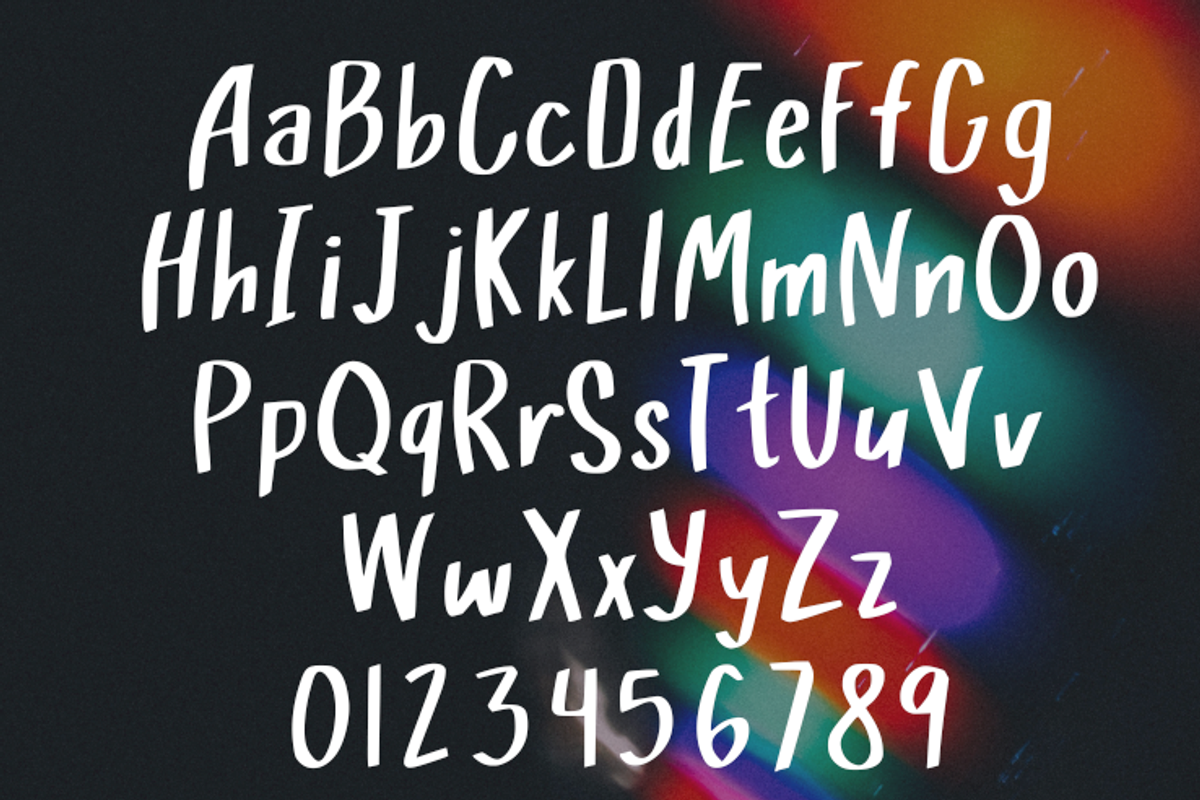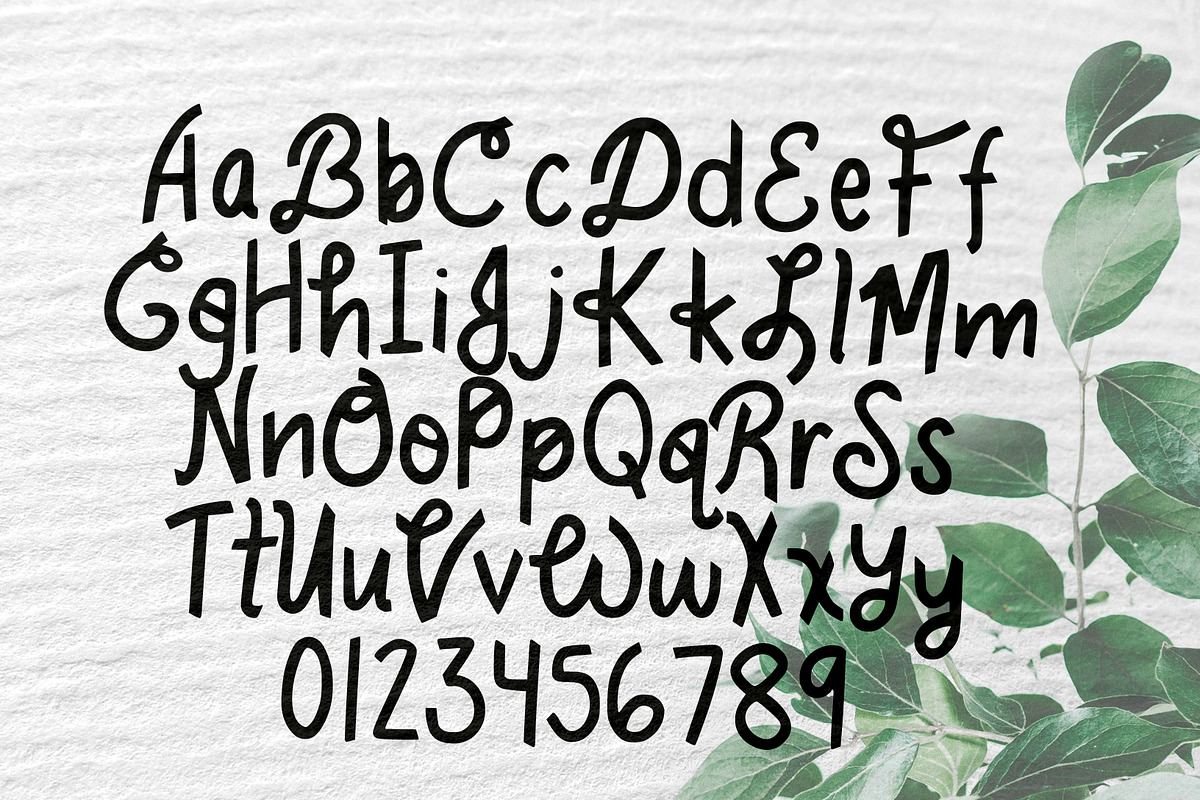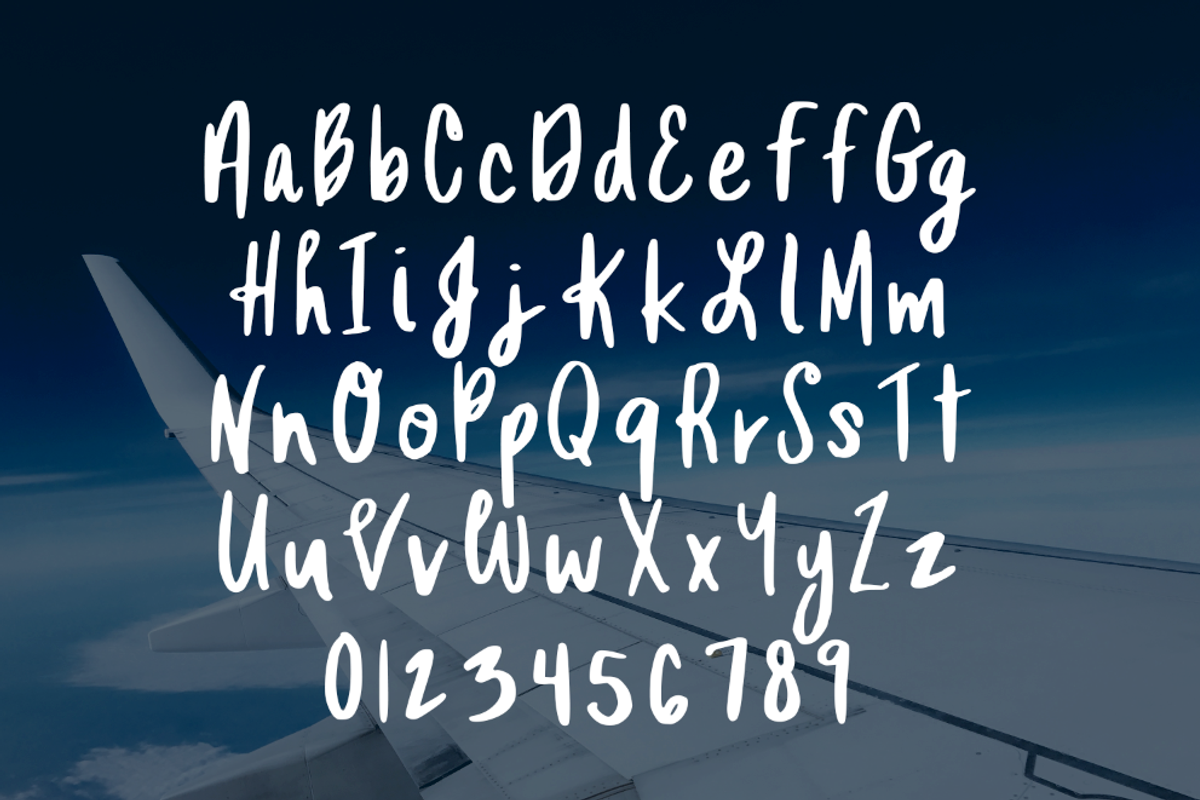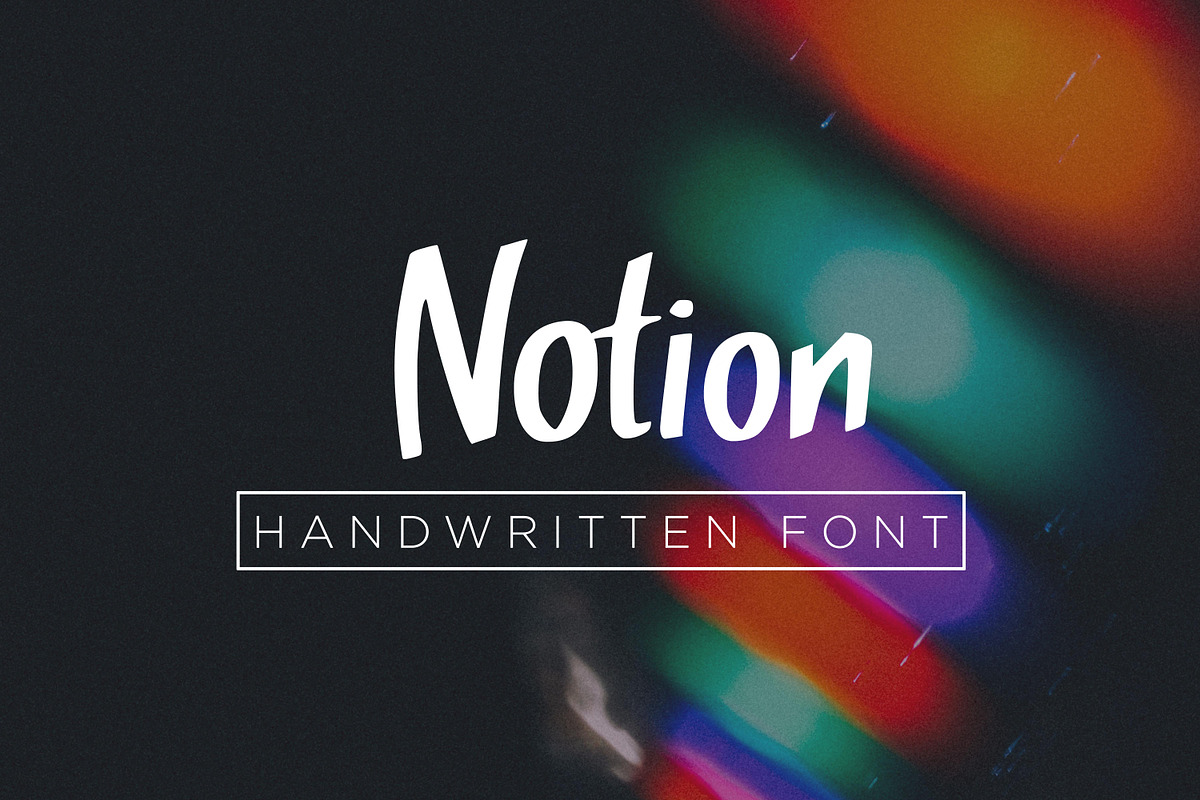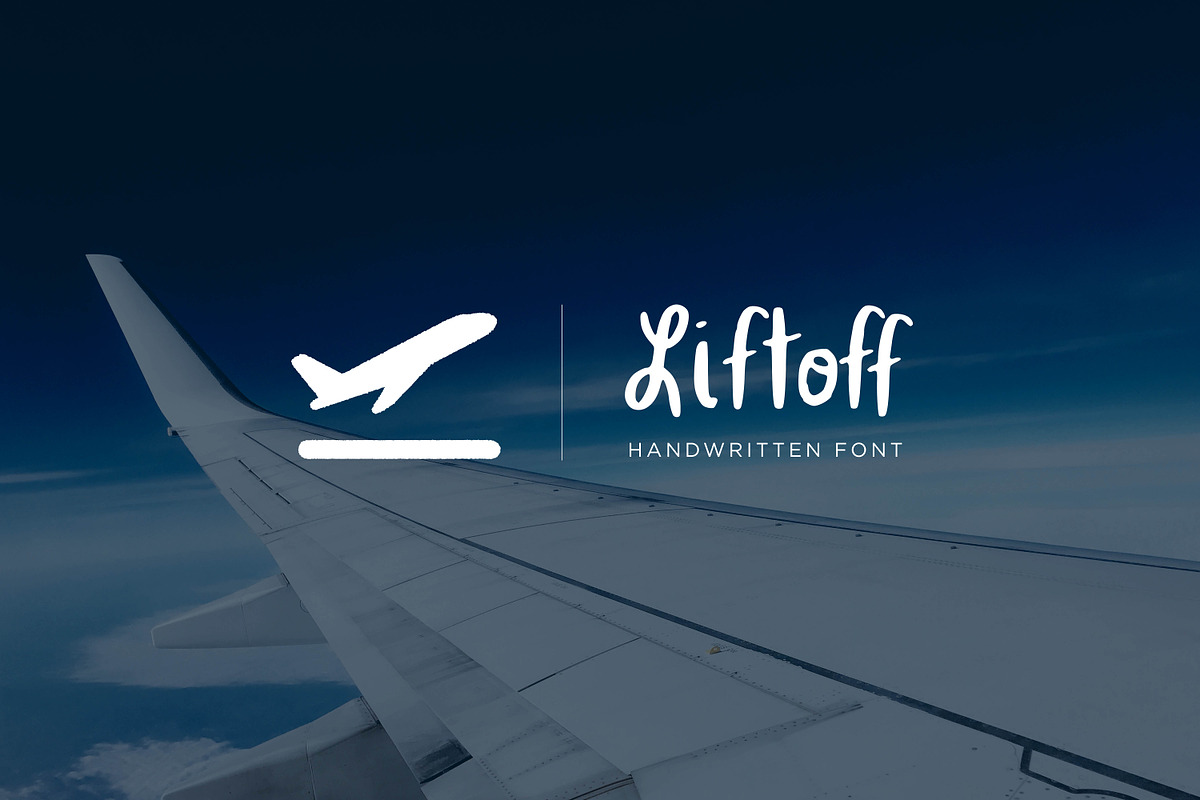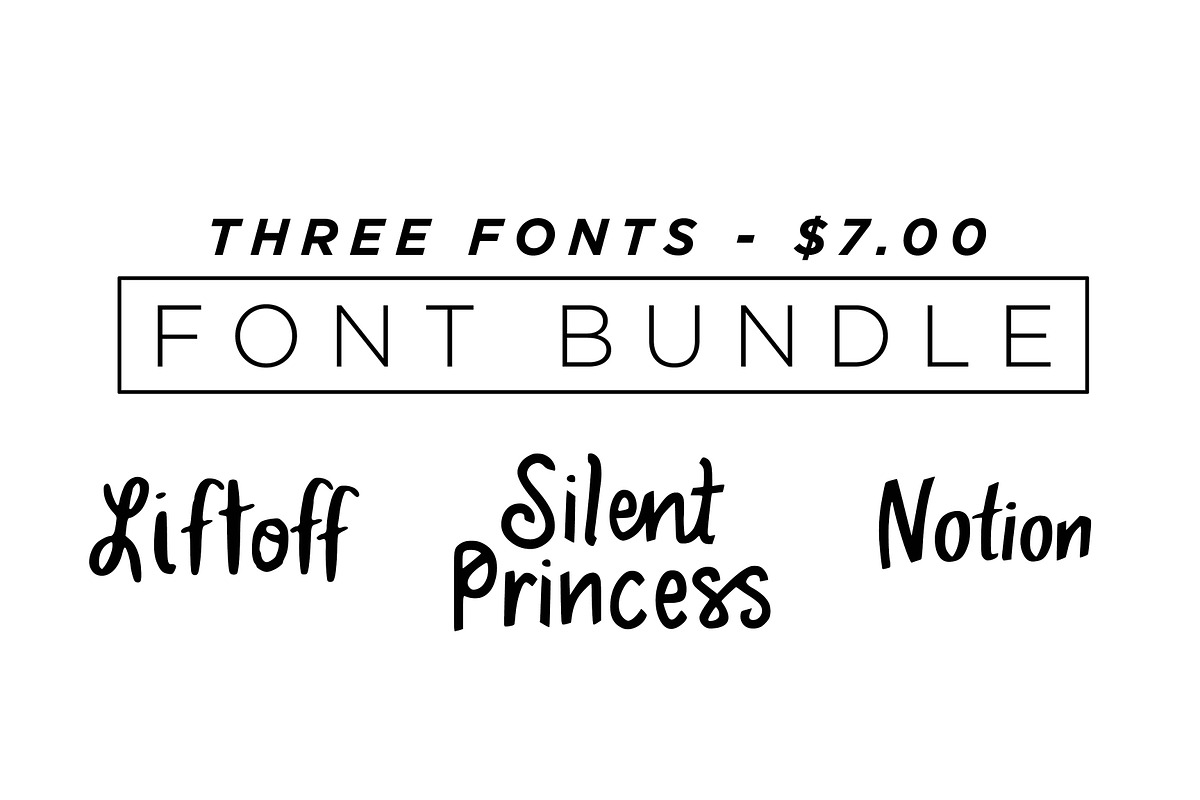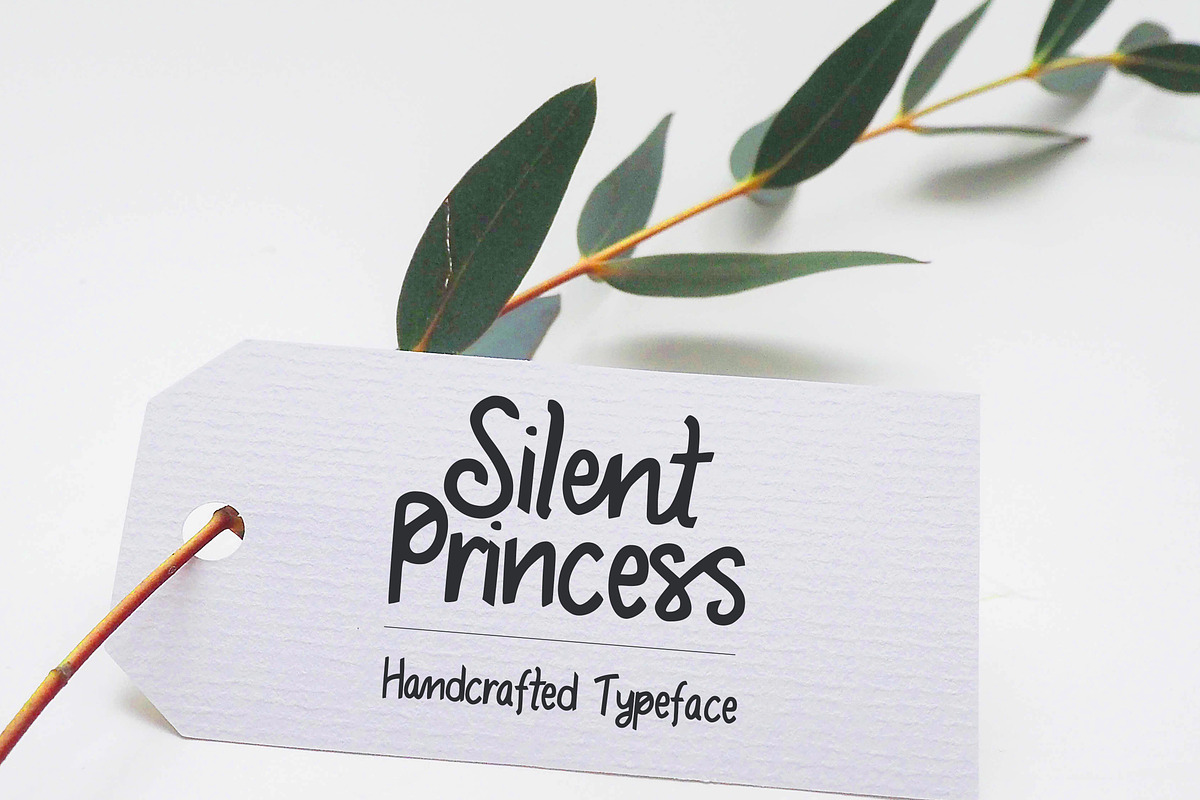
Font Bundle ONE
THREE IN ONE BUNDLE You get three handwritten fonts for a deal! Liftoff, Silent Princess & Notion all have upper and lower cases, as well as numbers and a large variety of symbols and punctuation!
- Liftoff, Silent Princess & Notion all have upper and lower cases, as well as numbers and a large variety of symbols and punctuation!
Why Font Bundle ONE is worth a look
Font Bundle ONE by Melon Script fits naturally into Branding, posters, packaging, typography.